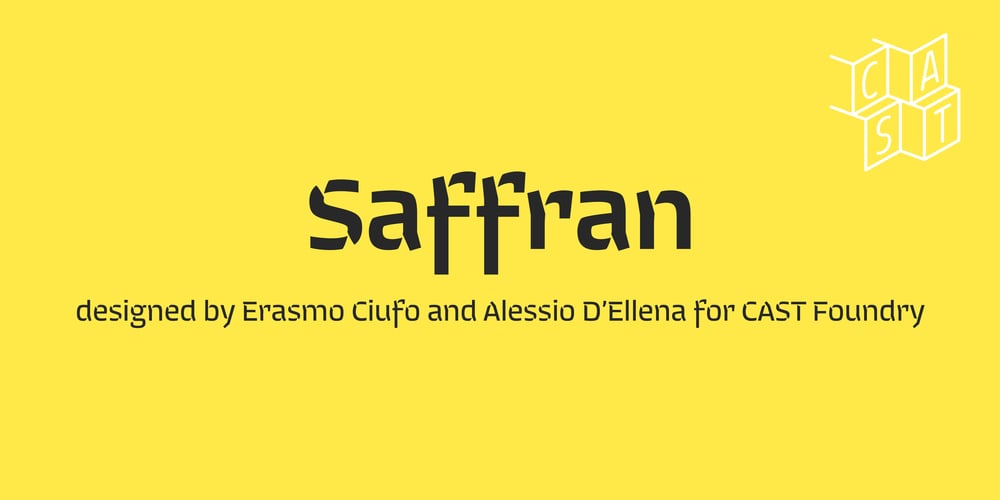
Saffran
Saffran font
Saffran Font Family was designed by Erasmo Ciufo and published by CAST. Saffran contains 6 styles and family package options. Saffran is a project of Erasmo Ciufo and Alessio D’Ellena. Saffran is a clear sans-serif with big x-height, short ascenders and descenders, that works well both for headlines and main bodies of text. The objective of the design is to improve readability of small size texts, by clearing the junctions and enlightening the structure of each letter as a consequence. The broken junctions, inspired from the hebrew alphabet, turn into spiky endings that connect to the flat sides only under 7pt.